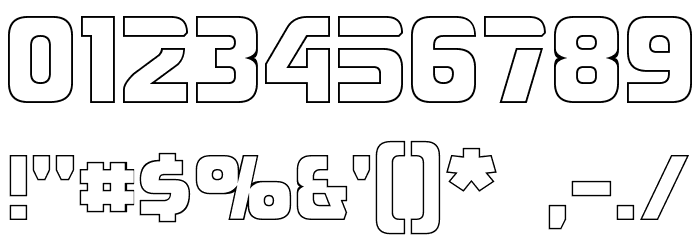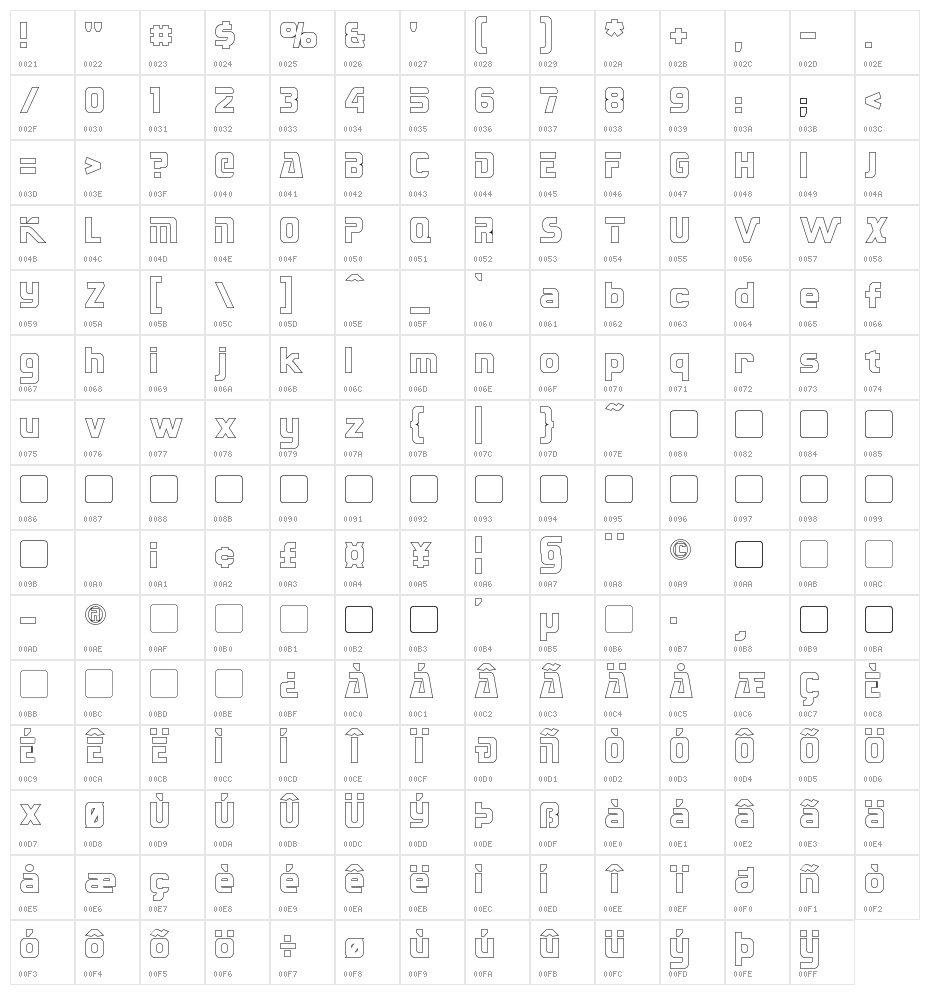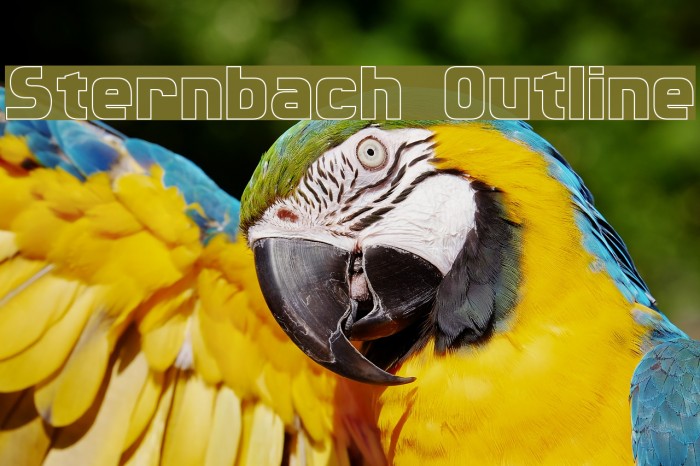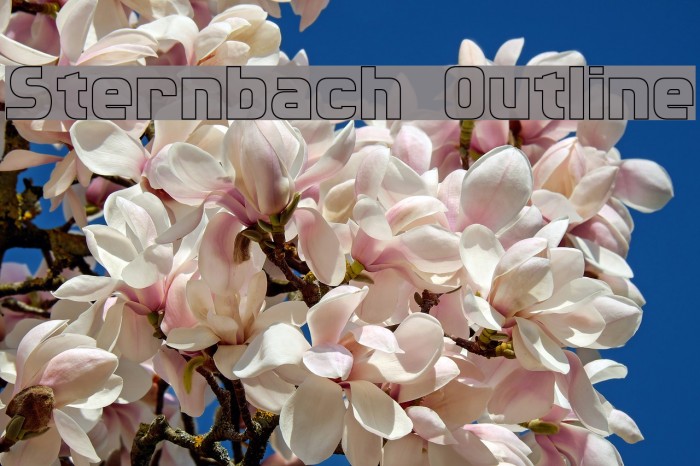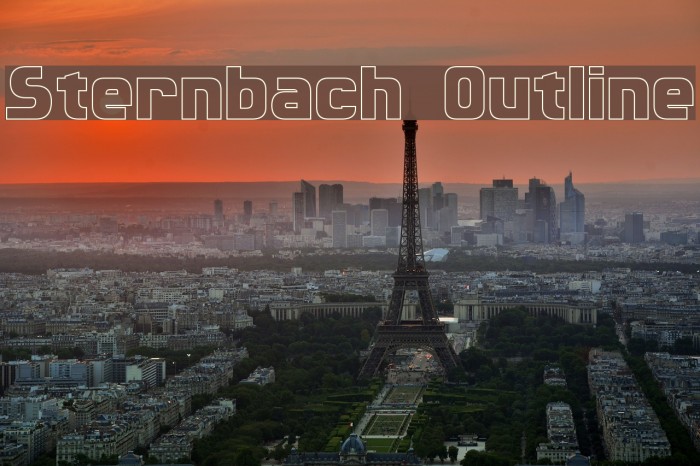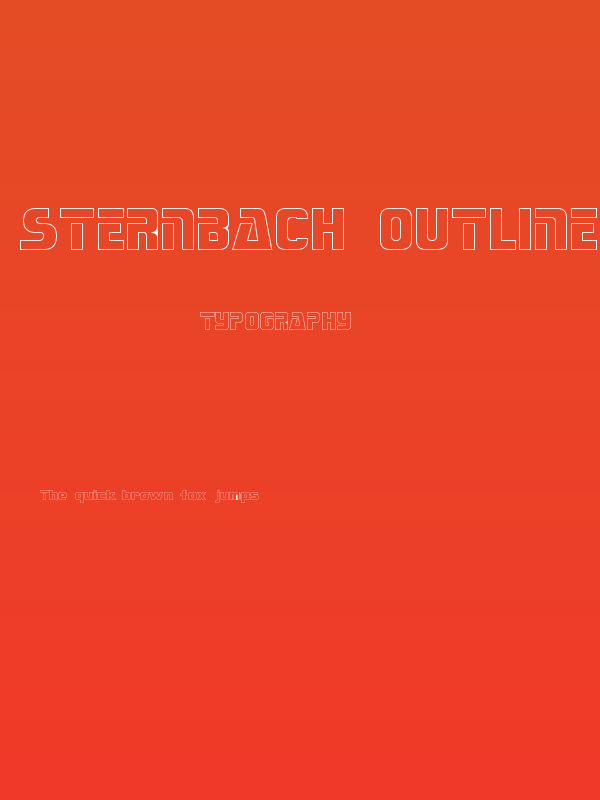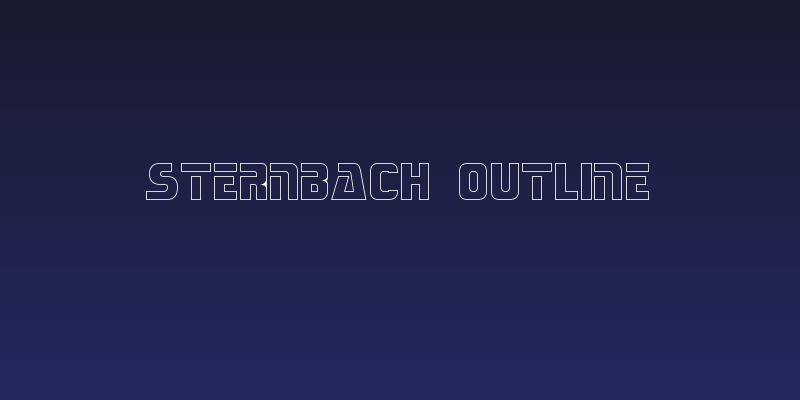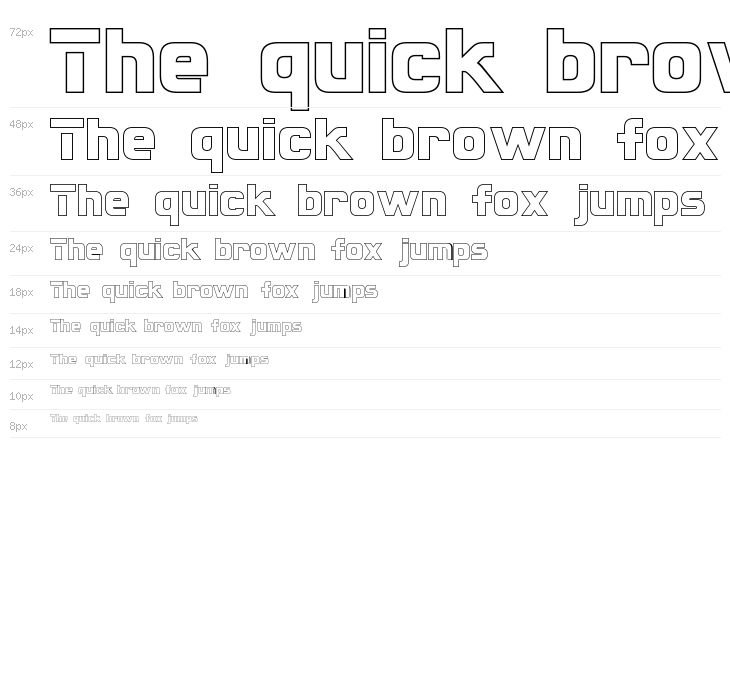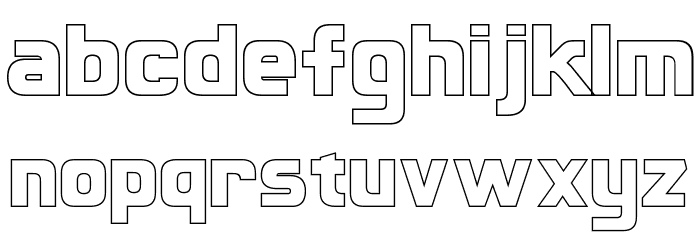
Sternbach Outline Font
Sternbach Outline Description
This font features a bold, geometric outline style that gives it a futuristic and technical appearance. The characters are constructed with clean, straight lines and sharp angles, creating a sense of precision and modernity. The uppercase and lowercase letters maintain a consistent height, contributing to a uniform look. The numerals and special characters follow the same design principles, ensuring cohesion across all elements. This font's outline design allows for creative layering and color usage, making it versatile for various design applications.
| Proposed Projects | Ideal for technology branding, sci-fi themed projects, posters, and digital artwork. |